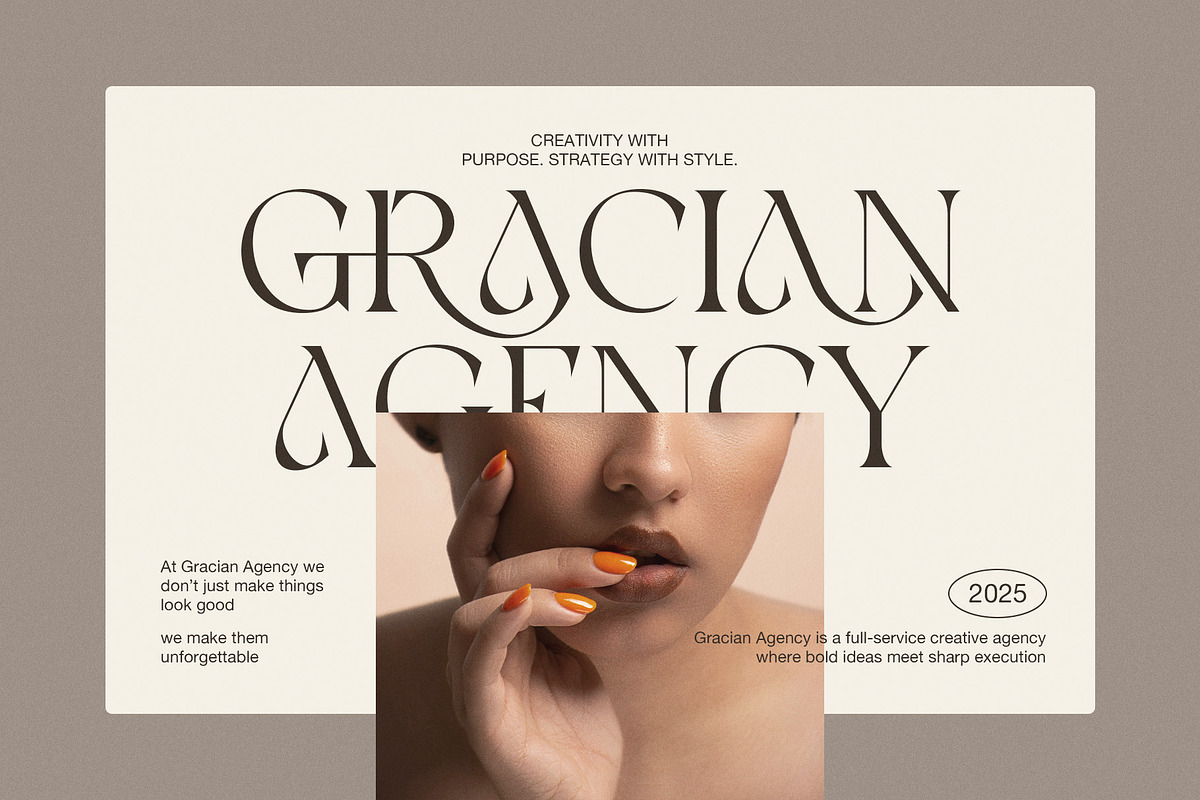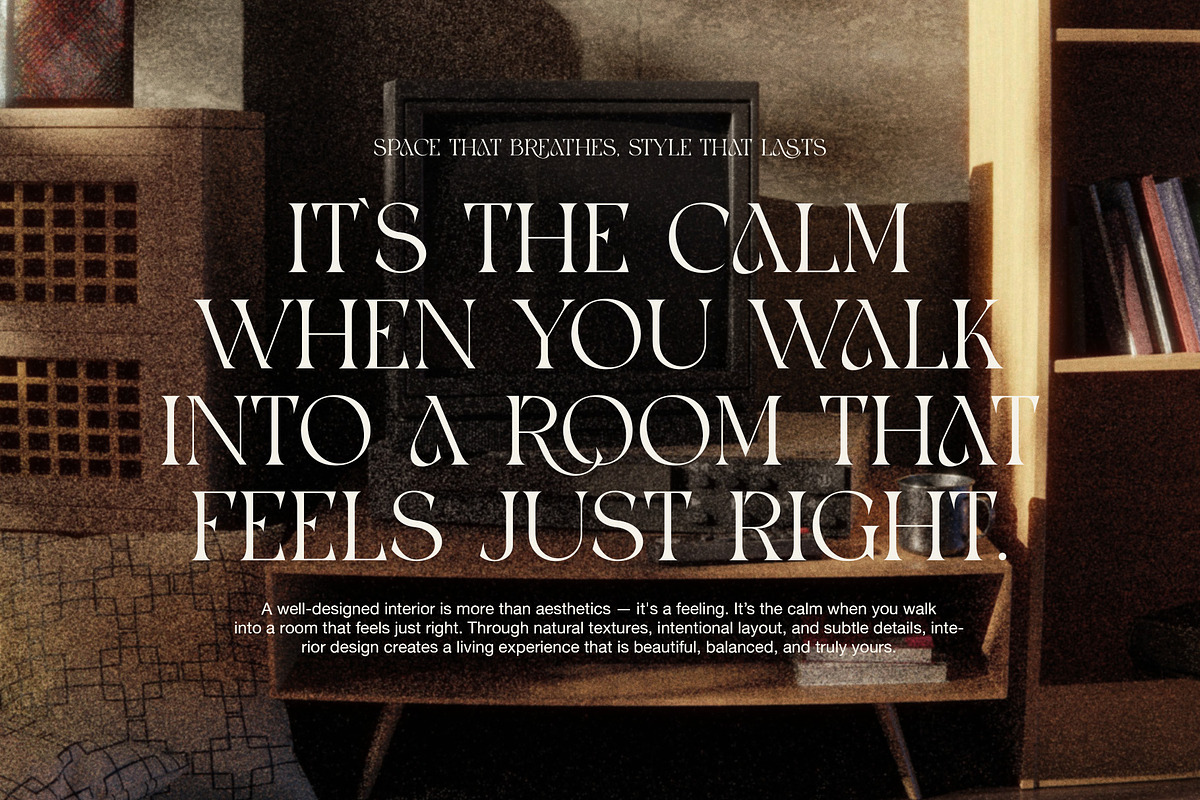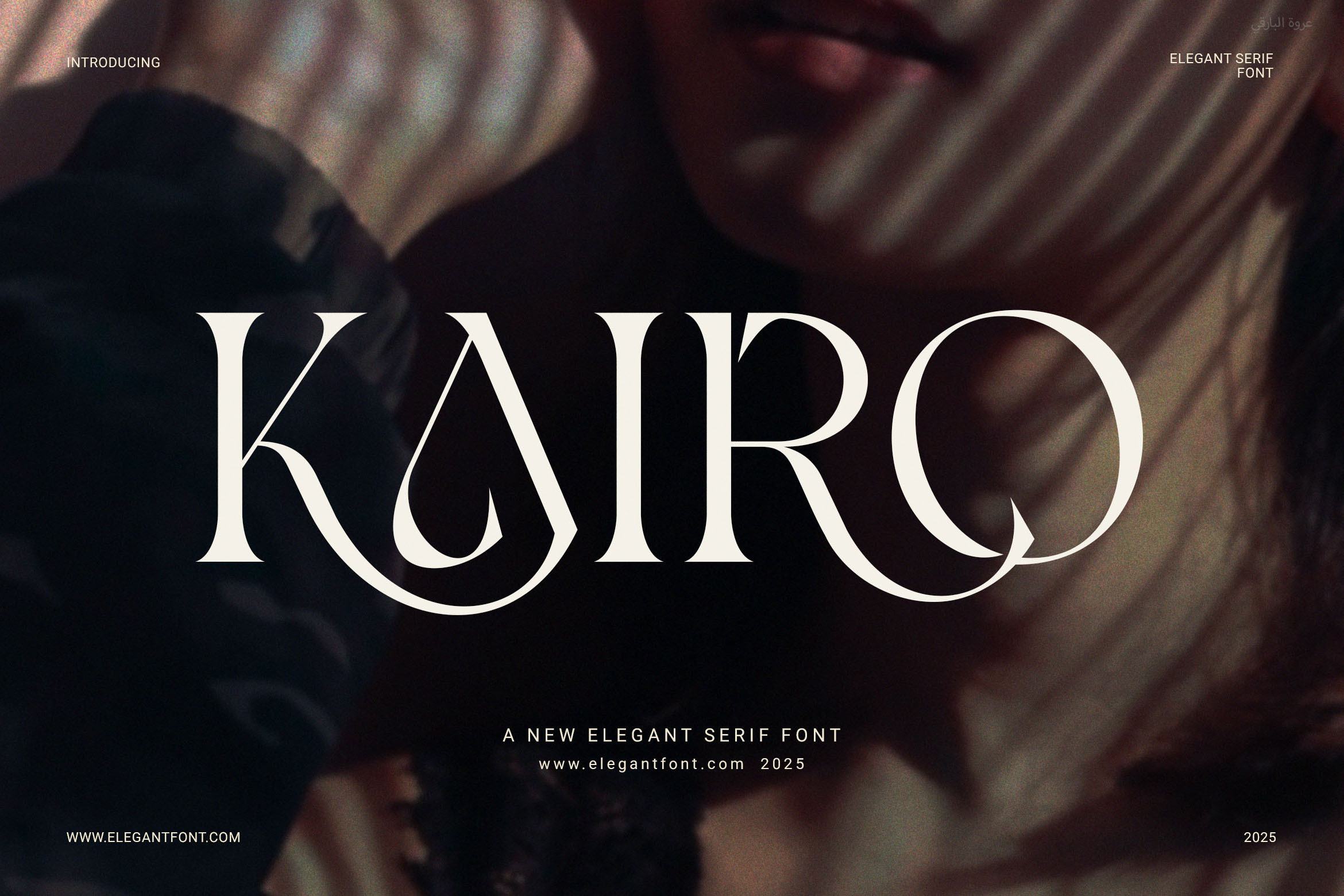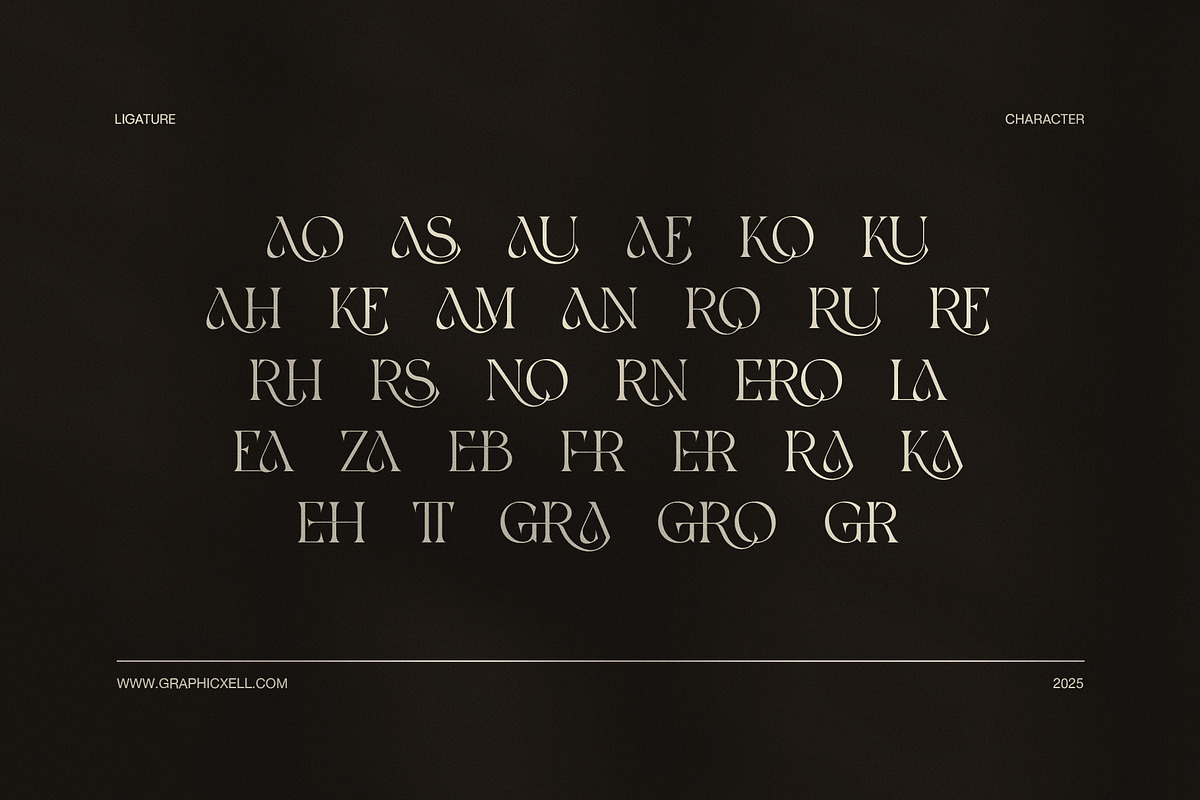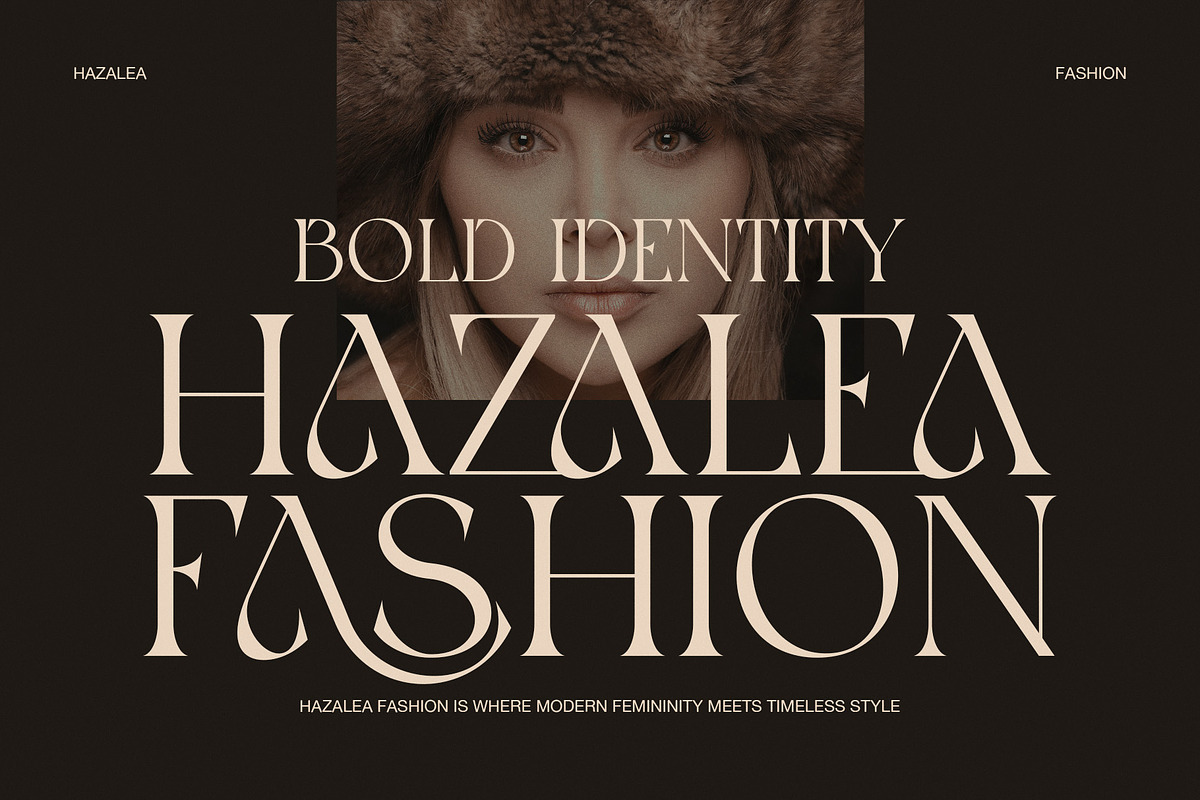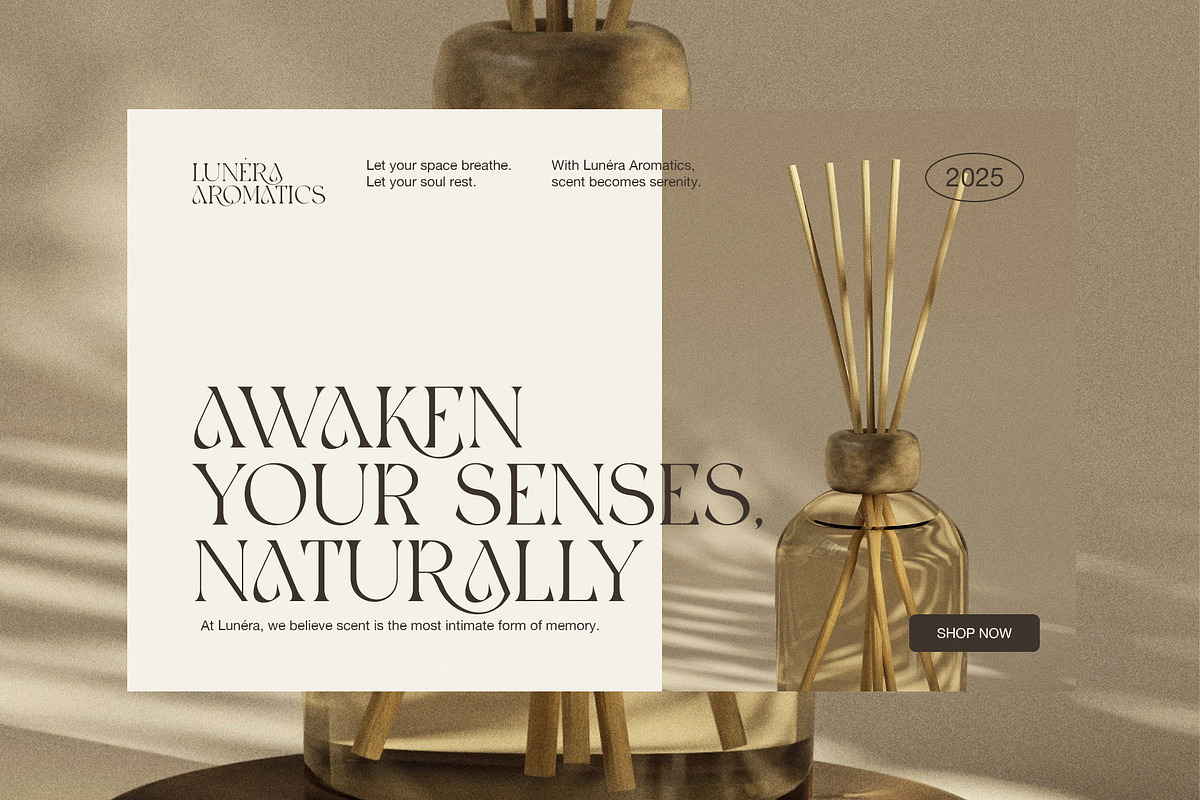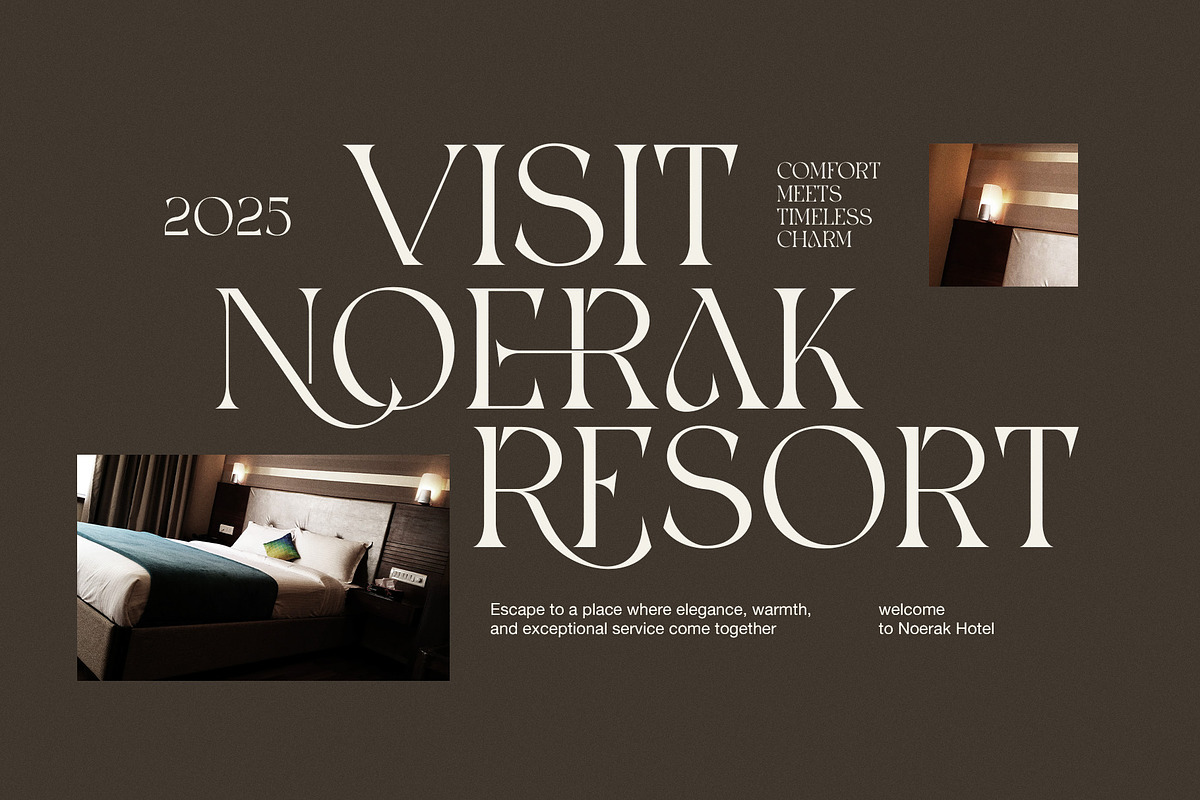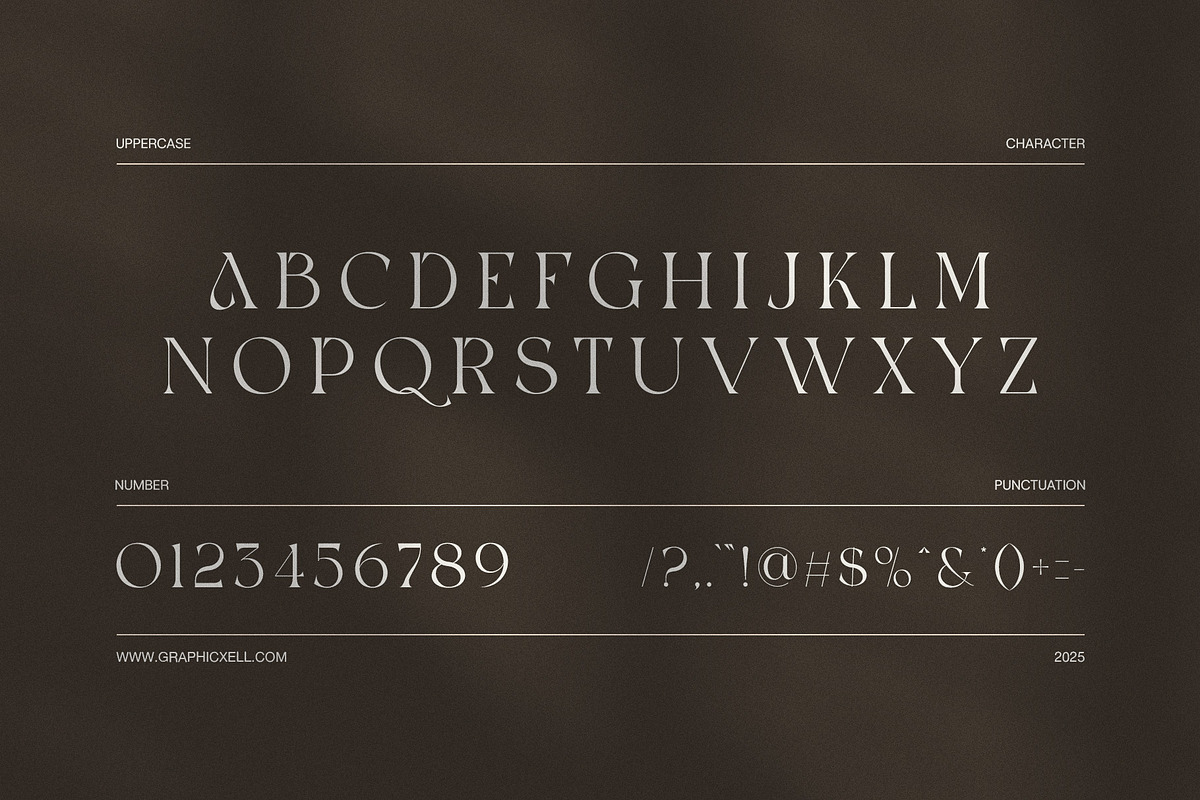
Kairo Elegant Serif Font
Kairo Elegant Serif Font is a stylish and modern serif typeface designed to bring elegance and clarity to your creative projects. With clean lines and balanced proportions, this font offers a timeless look that fits perfectly into both classic and contemporary designs.
Thanks to its smooth curves and functional ligatures, Kairo ensures every word looks refined and thoughtfully crafted. Whether you're working on a logo, website, packaging, or editorial layout, this font will help your design stand out with style.
Why is Kairo the right choice? Because it’s not just elegant—it’s also versatile. From luxury branding to fashion magazines, from boutique labels to advertising, Kairo adapts beautifully to every creative direction. As a result, your design always feels cohesive and professional.
Kairo is perfect for:
Premium logos and visual branding
High-end packaging and product design
Fashion editorials and modern magazines
Clean website headers and landing pages
Social media graphics and marketing materials
Restaurant menus and boutique identities
Moreover, Kairo includes uppercase and lowercase letters, multilingual support, and carefully designed spacing for easy readability. These features make it suitable for both digital and print media. Additionally, it works well with popular design software, so you can create effortlessly.
Elegant and modern serif style
Beautiful ligatures that enhance flow
Balanced proportions for easy reading
Multilingual character support
In conclusion, Kairo Elegant Serif Font helps you create bold, beautiful, and effective designs. If you want a font that speaks sophistication and adapts to any project, Kairo is the perfect solution.